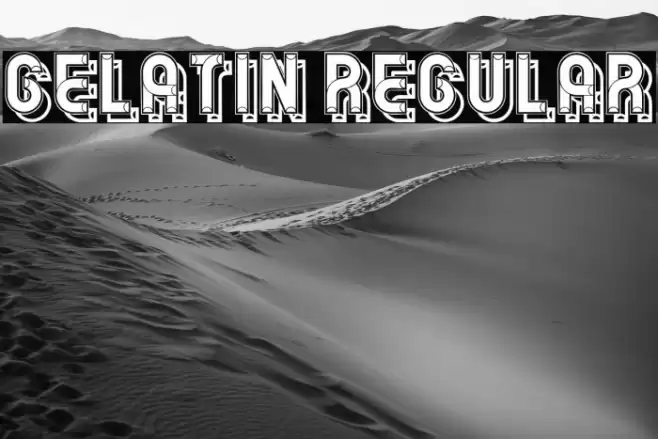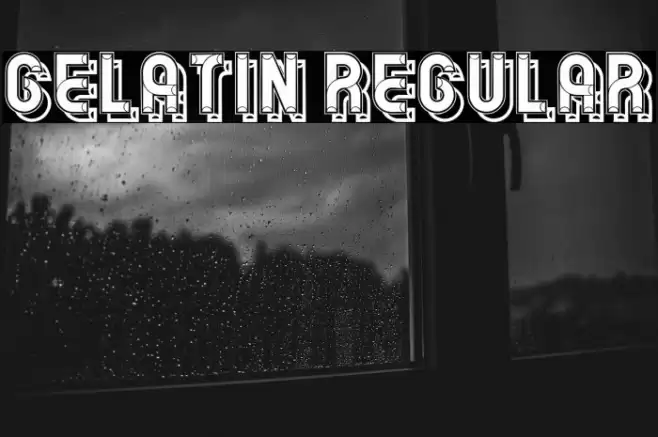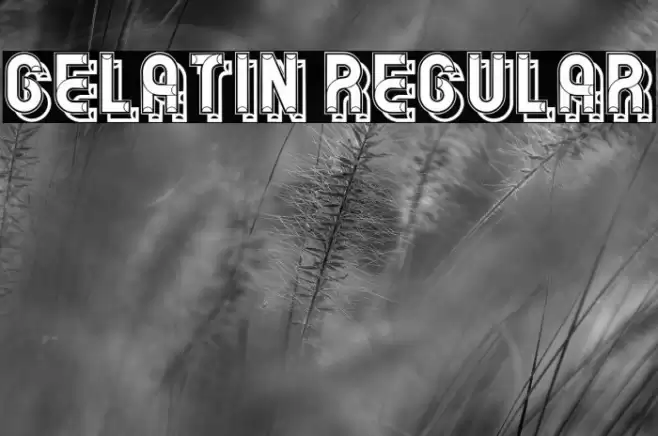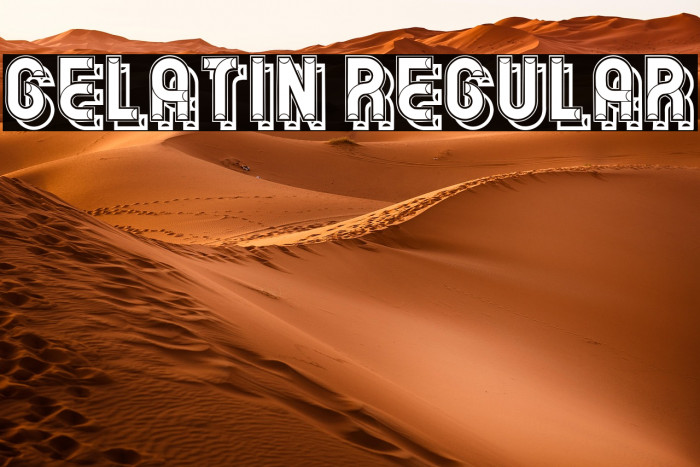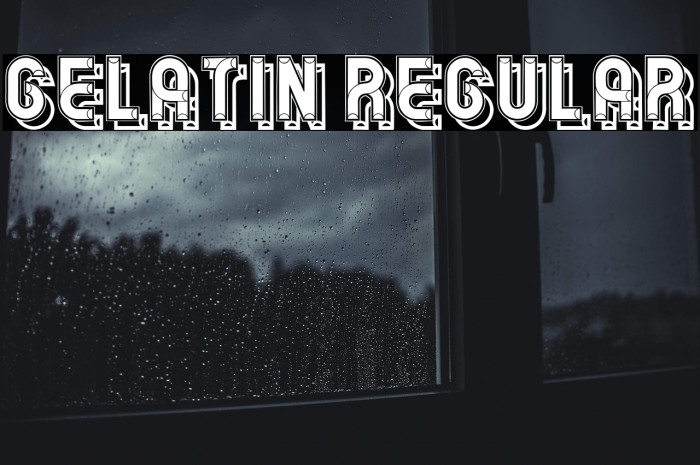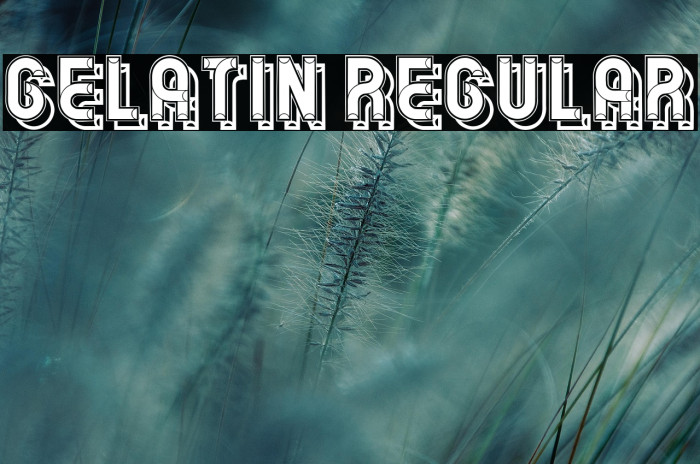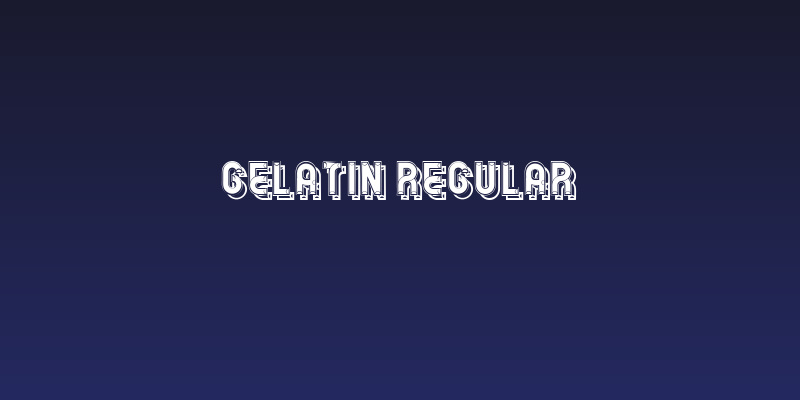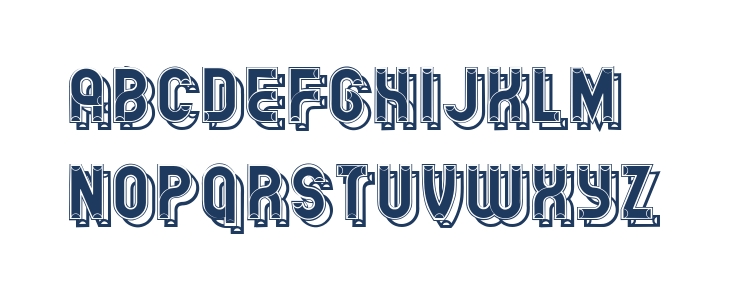
Gelatin Regular Font
Gelatin Regular Description
This font features a bold, decorative style with a three-dimensional effect. The characters are outlined with a thick black border, creating a striking visual impact. The interior of each letter is filled with a solid color, enhancing the boldness. The font has a playful and dynamic appearance, making it suitable for eye-catching designs. Its unique style combines elements of vintage and modern aesthetics, with a focus on geometric shapes and symmetry. The uppercase letters are particularly prominent, with a strong presence that commands attention.
A bold, decorative font with a three-dimensional effect and vintage-modern aesthetics from Uncategorized fonts.
- Proposed Projects: Ideal for posters, logos, headlines, and any design requiring a bold, eye-catching typeface.